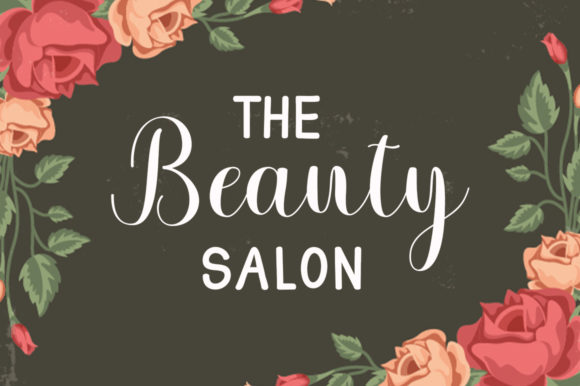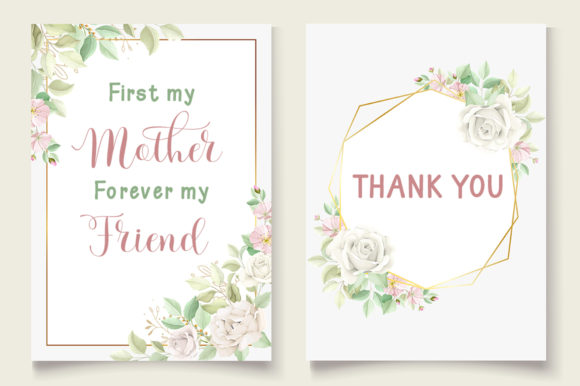
Lovey Dovey Font
db-ku.com - Script & Handwritten -- Lovey Dovey is a stylish and incredibly elegant duo font (sans serif and script). It looks stunning on wedding invitations, thank you cards, quotes, greeting cards, logos, business cards and every other design which needs a handwritten touch.